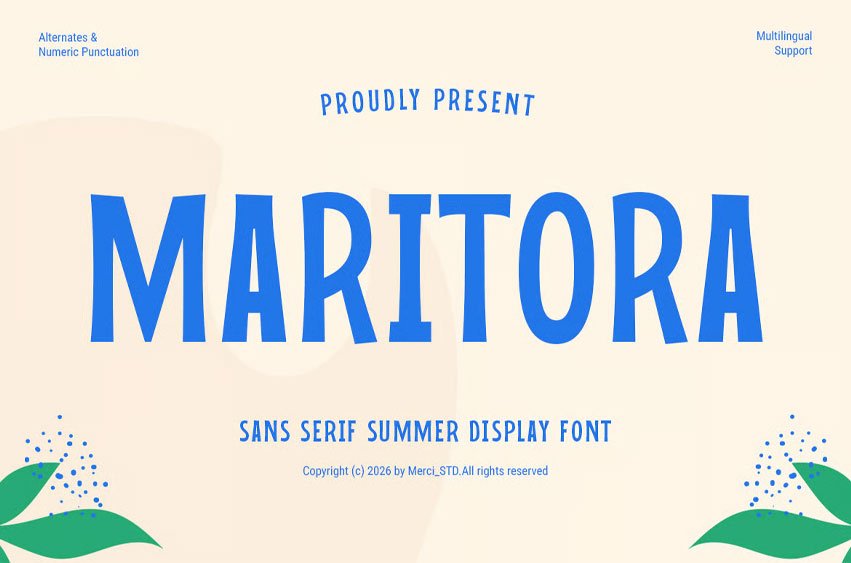
Maritora Font is a modern sans serif display font inspired by sunny summer adventures and relaxed coastal aesthetics. Featuring clean lines with subtle playful characteristics, this typeface works beautifully for travel branding, beach campaigns, packaging, posters, social media content, lifestyle projects, and creative visual identities.
Its fresh and approachable style delivers strong visual appeal across various applications.
- Uppercase Letters
- Numbers & Punctuation
- Ligature & Alternate Character
- Unique Hand-Drawn Styl